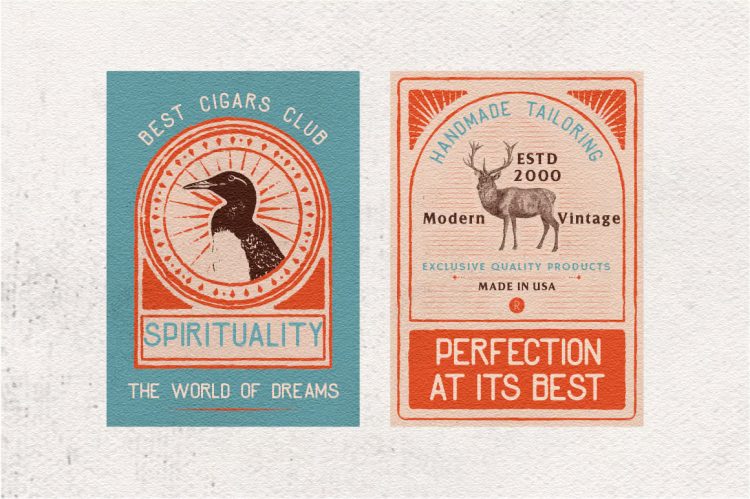
Introducing Barter β a bold vintage retro script font that captures the authentic spirit of old-school American design.
Inspired by the timeless aesthetics of classic signage, hand-painted advertisements, and vintage packaging, Barter delivers bold character and undeniable charm to every project.
Barter Regular
Full AβZ Uppercase and Lowercase Letters
Numbers and Punctuation
Alternates and Ligatures for natural handwriting feel
Multilingual Support
π Perfect For:
Vintage Logo Designs
Retro Poster & Billboard Art
Product Packaging (Coffee, Apparel, Handmade Goods)
Branding Projects
T-shirt and Merchandise Design
Social Media Graphics with Retro Vibes
Barter makes it effortless to create bold, nostalgic designs that feel handcrafted yet polished. With the included Extrude version, you can instantly add layered depth and authentic retro dimension to your typography.